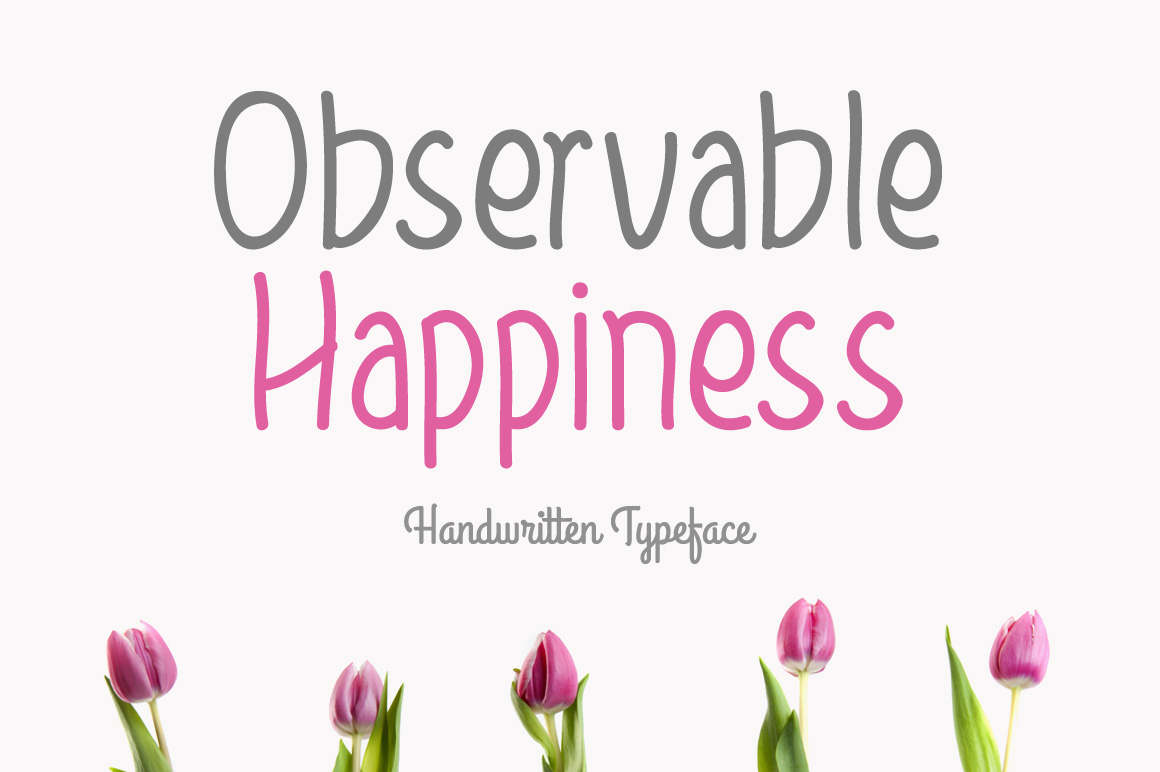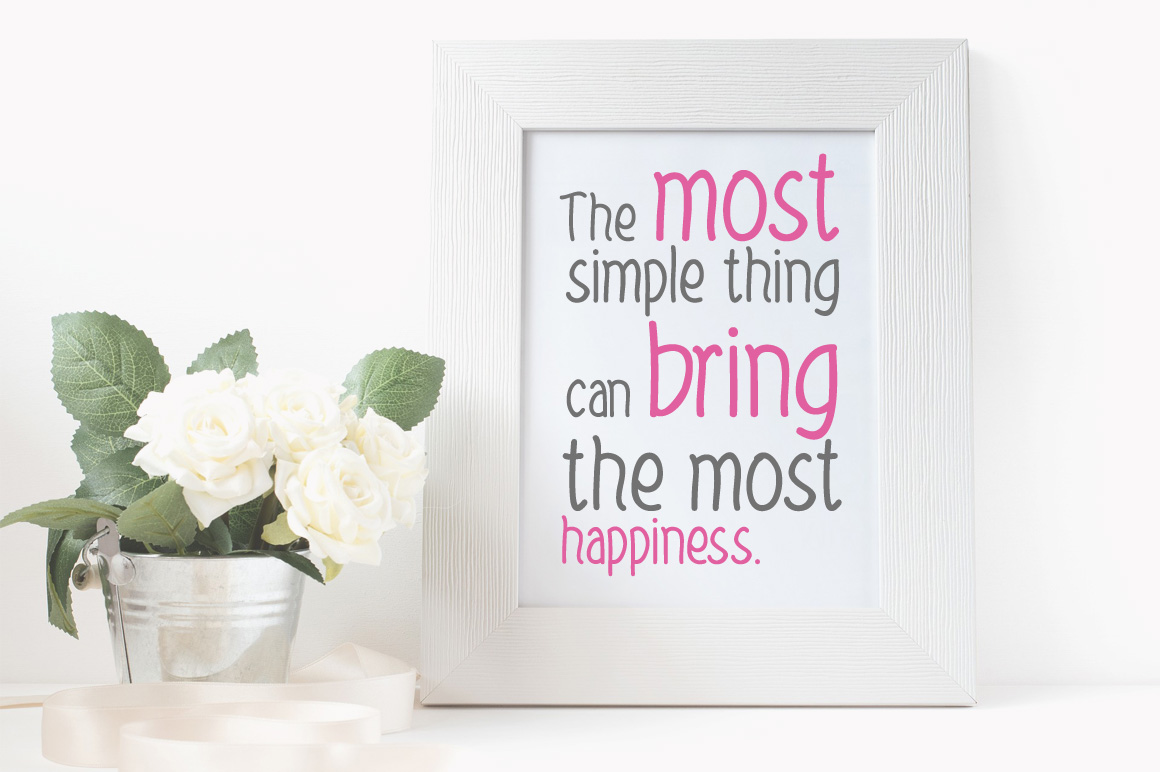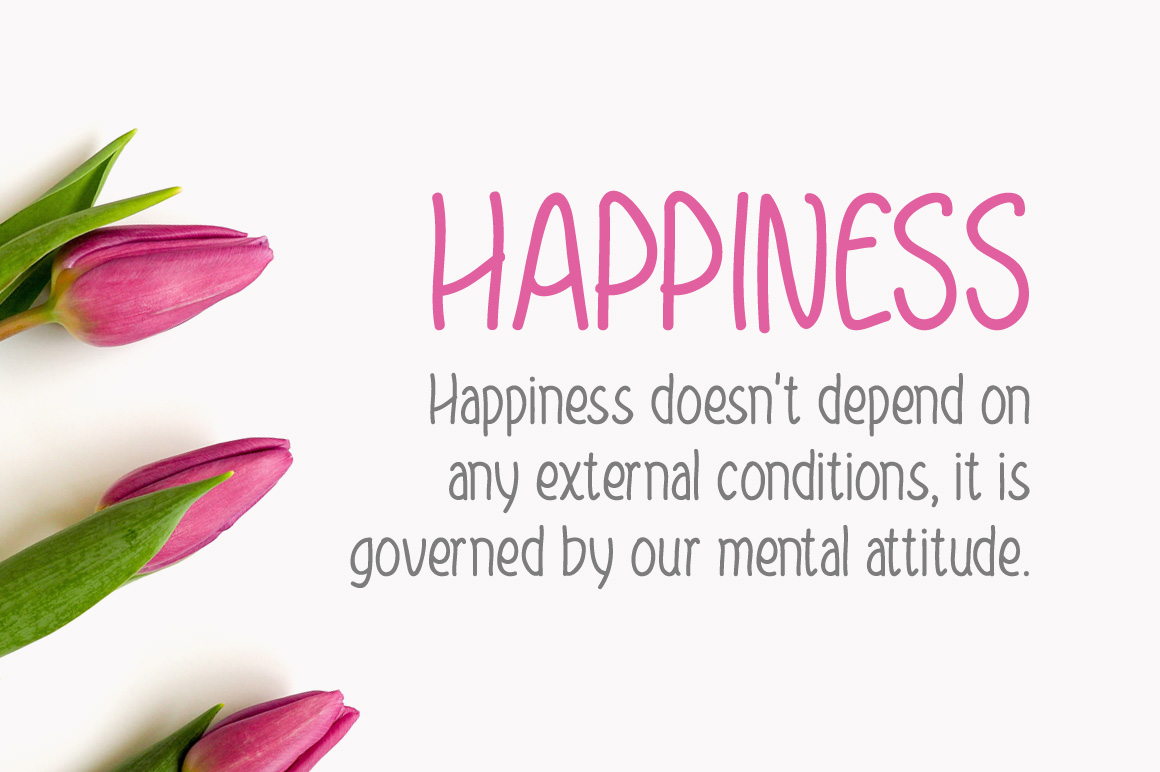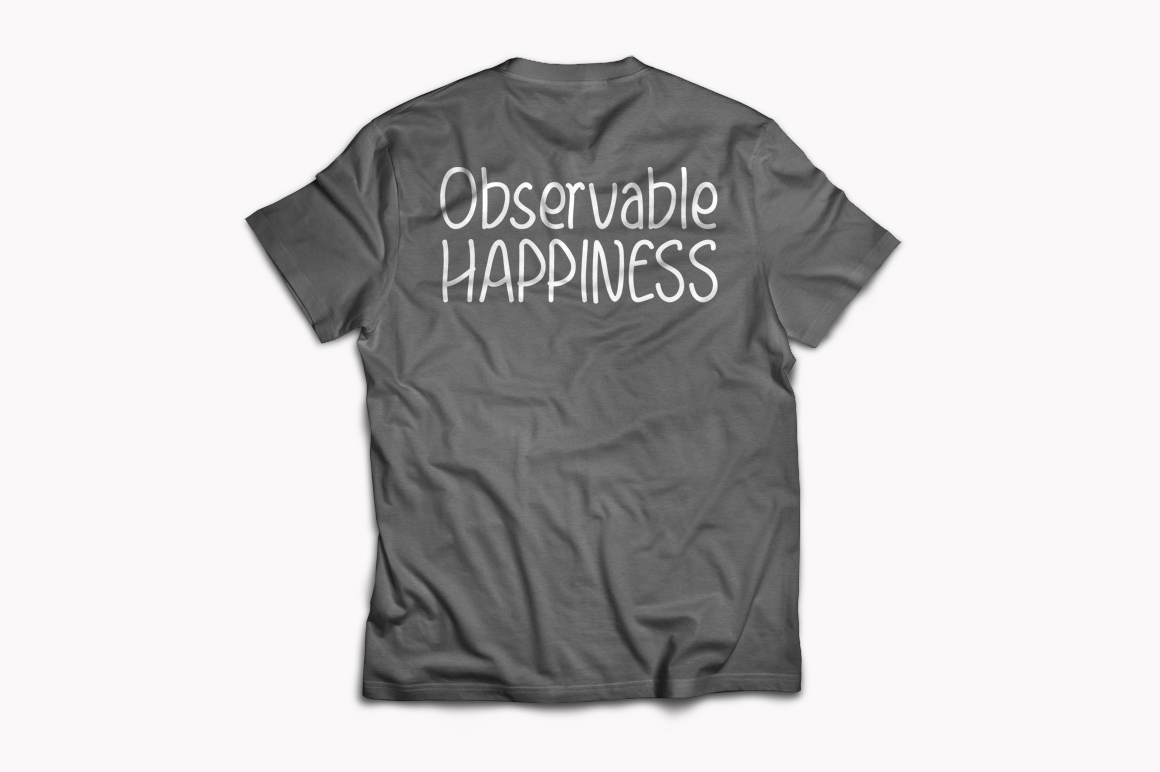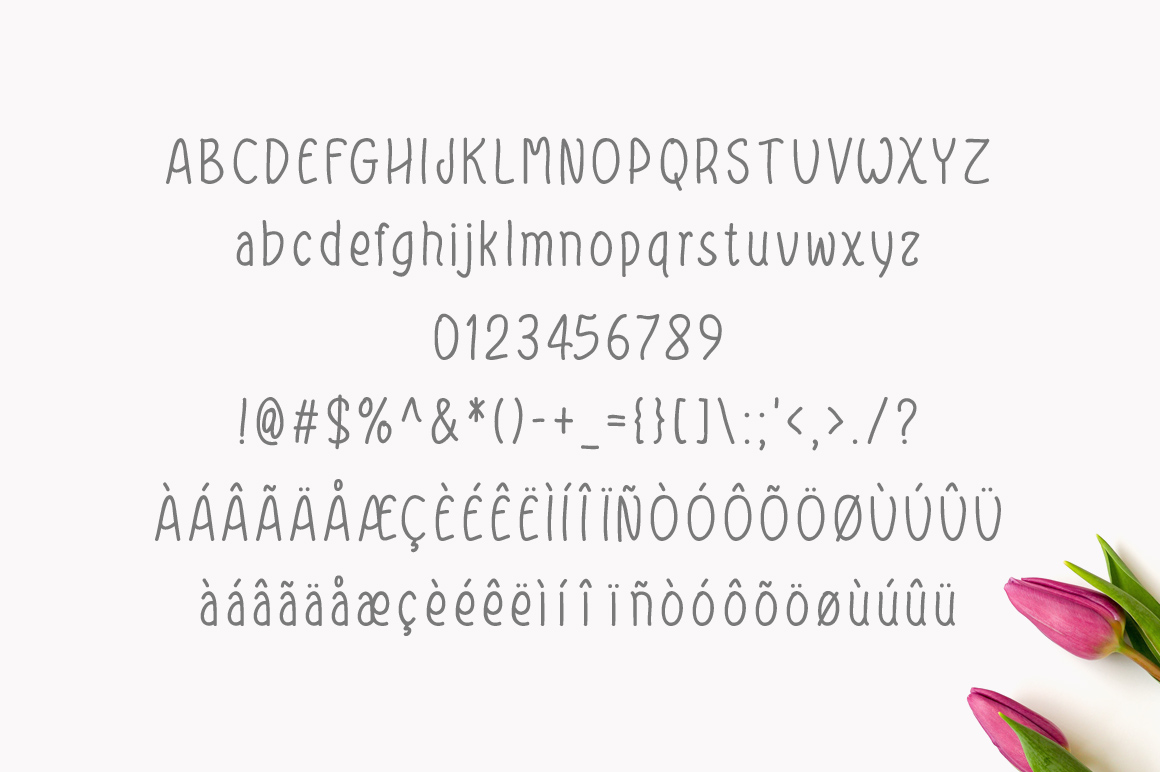
Observable Happiness Font
About Observable Happiness Font
Observable Happiness is a cutesy and friendly font, perfect for ushering Spring time! This font looks gorgeous paired with cursive/calligraphy styles, or standalone for a truly branded look.